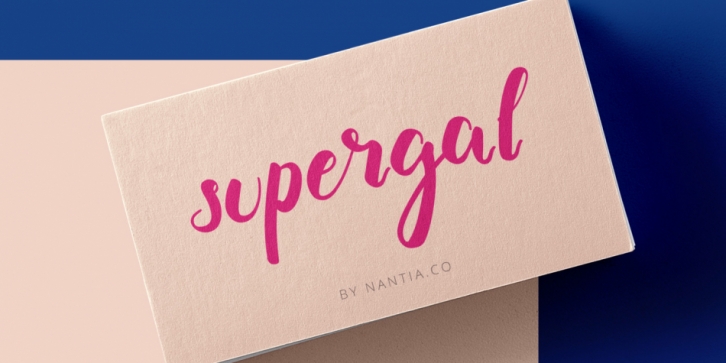
Supergal Greek Casual Brush font is a brush display and script font published by Konstantina Louka.
Supergal, Greek Casual Brush font
The Supergal Casual Brush font is a brush decorative font with which you can achieve a handwritten-type lettering feeling. Supergal Casual Brush font it’s a multilingual lettering font with Greek (of course), Latin characters and diacritics. The style of the font is perfect for your modern graphic design needs. This font has a really nice flow so you use it in a large text if you want to give them a touch of personality. It can be used on social media content, for branding or packaging.
Also, Supergal Casual Brush font is the ideal typeface for the food industry, for food branding, for restaurant menus and packaging. Additionally, you can use Supergal Casual Brush font superpowers for wedding and baby shower invitation designs. Especially if you are looking for a font for Instagram quote posts or any other social media content, this typeface is for you!